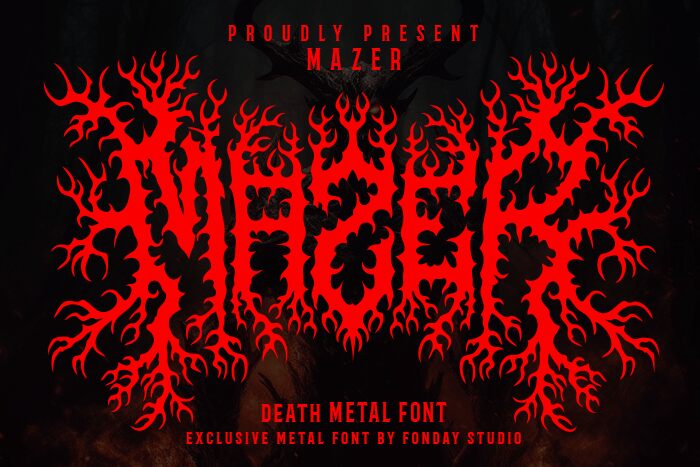
MAZER METAL
Mazer Metal font by Fondaystudio is a striking display typeface that captivates with its eerie, modern gothic aesthetic. Its unique design features sharp, jagged lines reminiscent of twisted roots or dark branches, creating an unsettling yet compelling visual impact. The weighty characters stand boldly on the page, evoking a sense of strength and foreboding.
This font is ideal for projects aiming to convey themes of mystery and horror—think book covers for thrillers or promotional materials for haunted attractions. Its dramatic presence can also serve well in music graphics or urban-themed designs where a touch of the macabre is desired. Mazer Metal seamlessly blends elegance with dread, making it an excellent choice for captivating audiences looking for something truly distinctive.